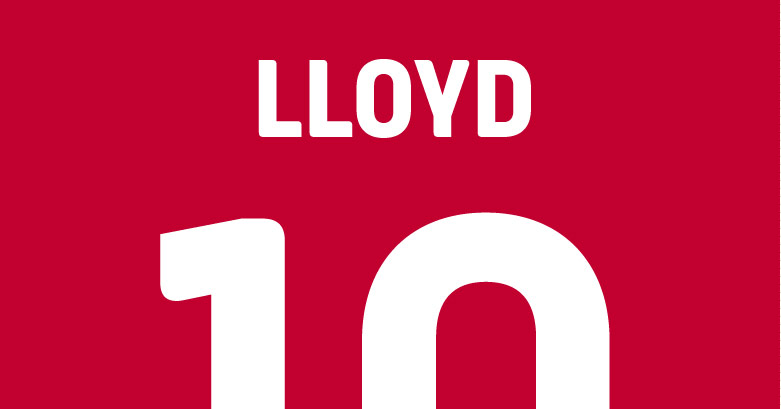
USA 2016 Jersey Font Revealed
- New Font Launch: US Soccer unveiled a new corporate font called 90 Minutes alongside their new crest.
- Font Designer: 90 Minutes was designed by Tal Leming of Type Supply, based on a Nike in-house sketch.
- Kit Specific Version: Leming created a special version of the 90 Minutes font called 90 Minutes Kit, specifically for the US Soccer jerseys, with alterations to meet requirements and aesthetics.
Accompanying the launch of the all-new US Soccer crest, the federation also unveiled an all-new corporate font, 90 Minutes. 90 Minutes was designed by Type Supply's Tal Leming, who evolved the typeface from a sketch Nike had done in-house to complement the new logo.
USA 2016 Copa America Font
This is the font for the new United States 2016 jerseys.
Part of the 90 Minutes font family, Leming created an extra version especially for the use on the new US Soccer shirts, 90 Minutes Kit.
"These look similar to the Display subfamily, but the weights, widths and shapes are substantially different. The reasons for the changes varied from technical things like FIFA uniform regulations to abstract things like “what will the uniforms look like in five years?” This was a fascinating quagmire to work through."